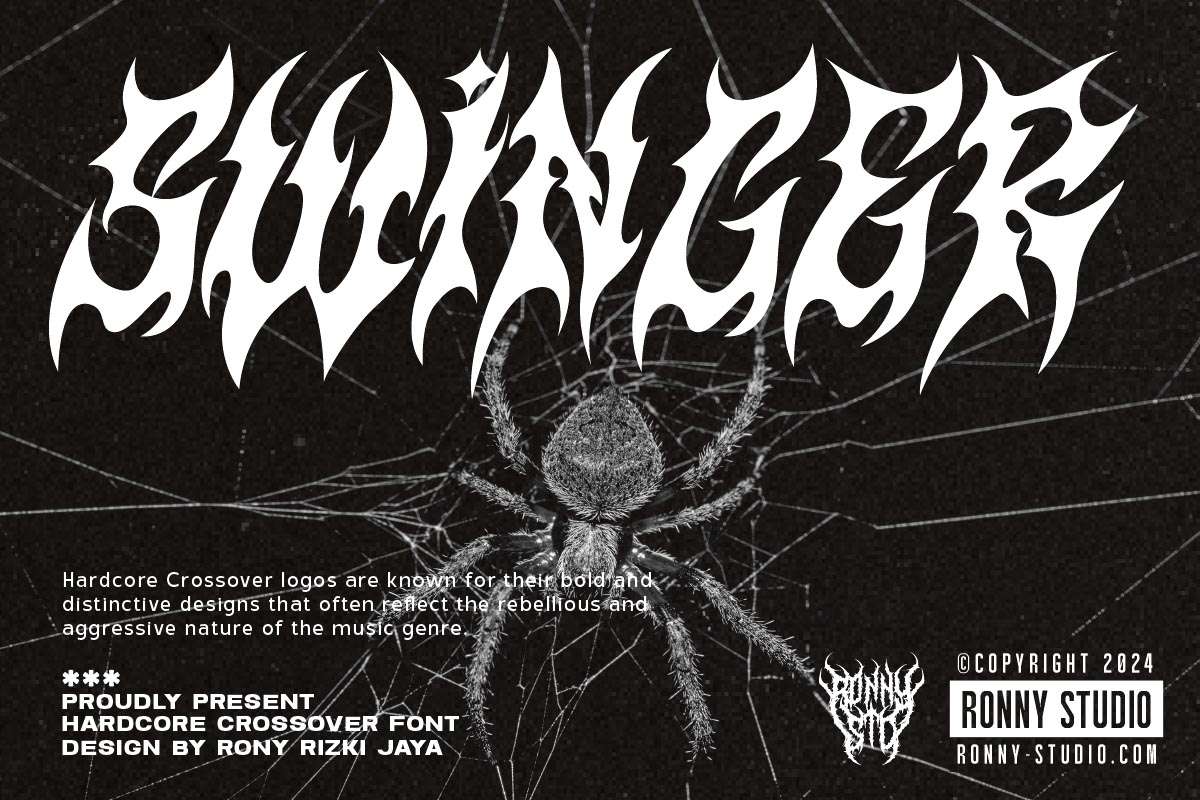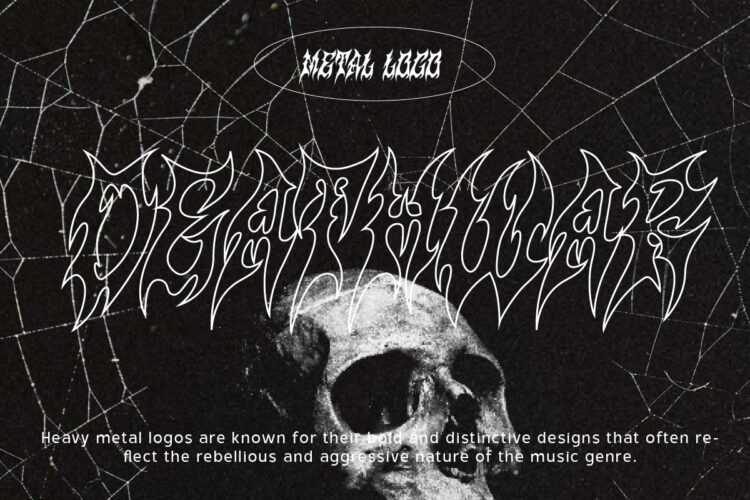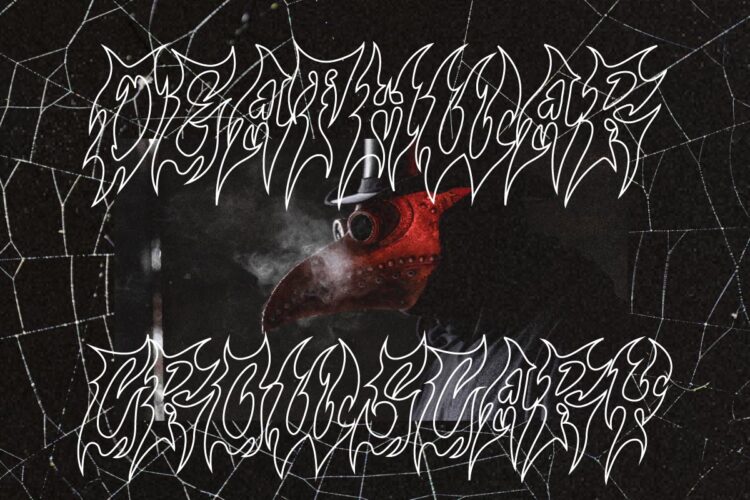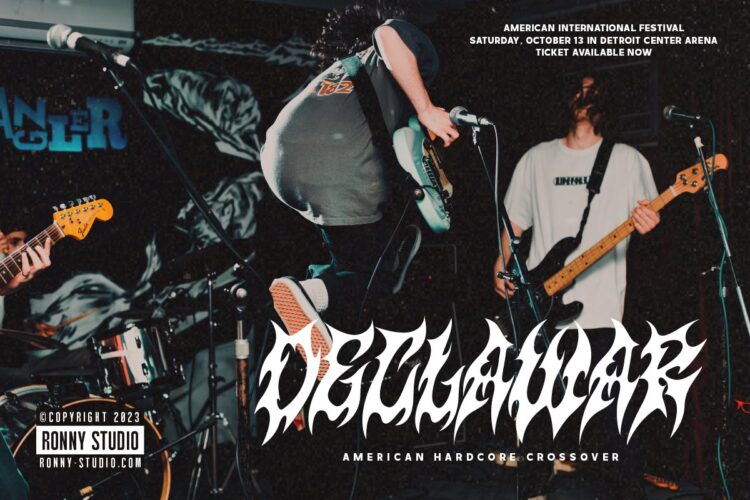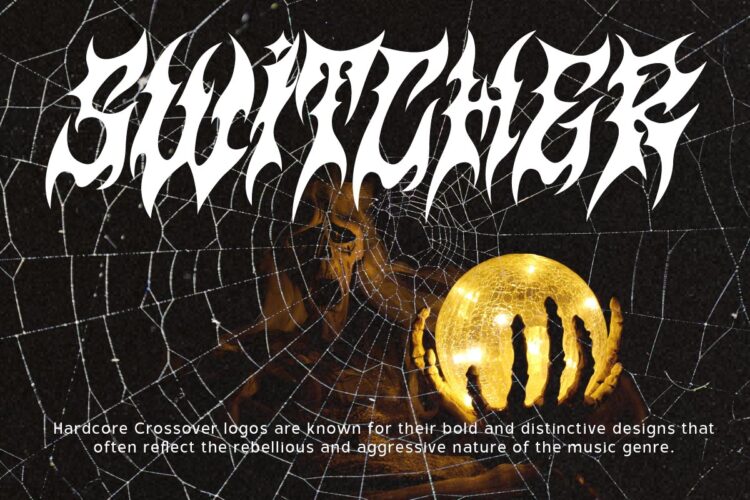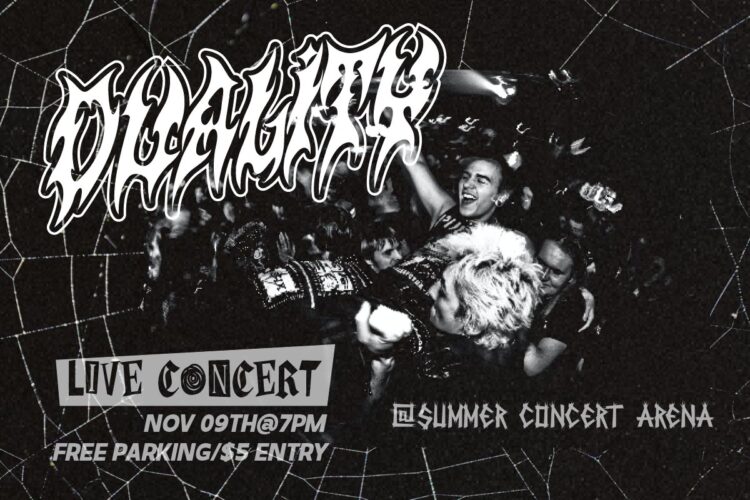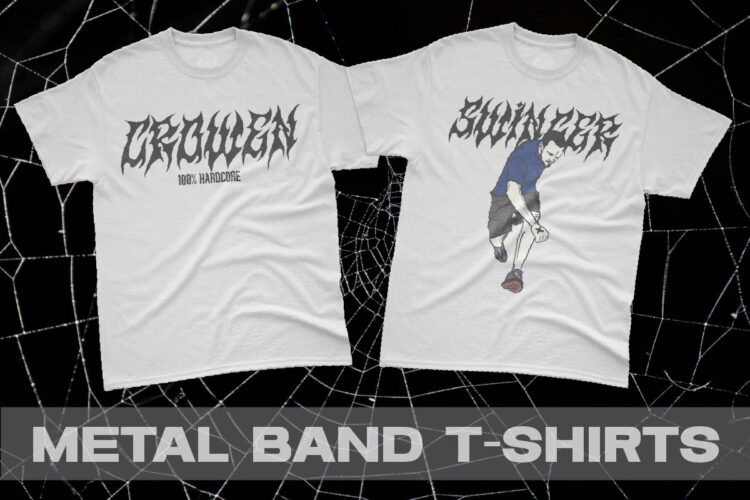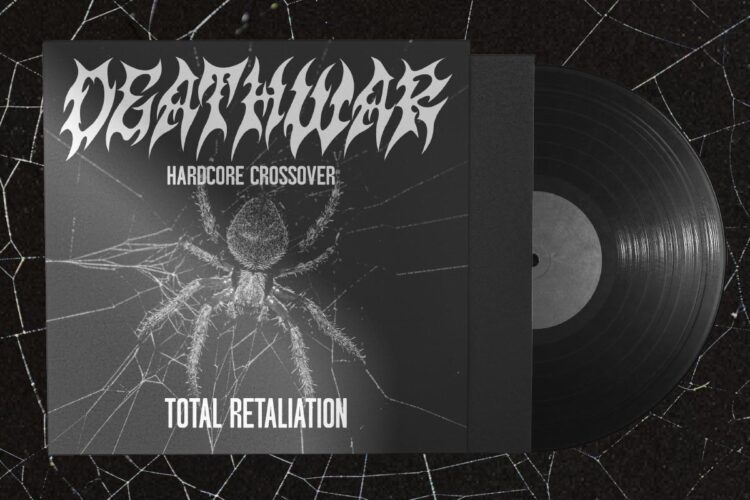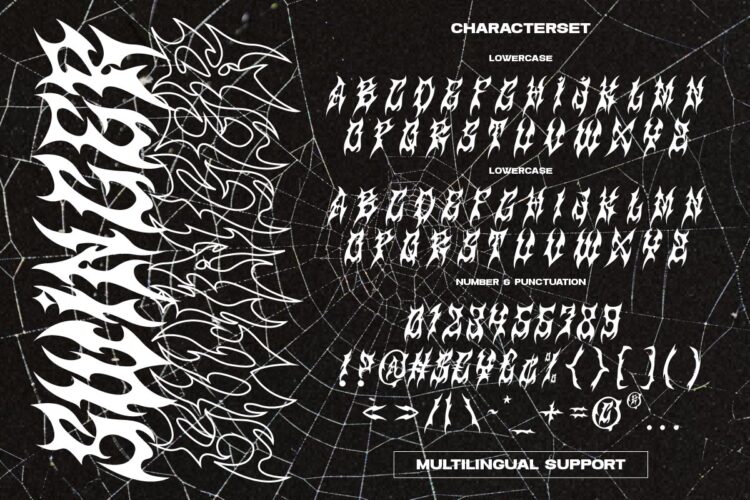
Hardcore Crossover Font Logo
Swinger
🔥 Swinger is a Hardcore Crossover font with a bold, aggressive, and high-impact look. Perfect for metal band logos, deathcore, hardcore punk, merch apparel, and gothic & horror-themed designs.
⚡ Why choose Swinger?
✔ Sharp & unique style – inspired by black metal & deathcore aesthetics
✔ Multilingual Support – compatible with multiple international languages
✔ Ideal for both print & digital – maintains sharpness in all sizes
🔥 Perfect for:
✔ Metal, punk, hardcore, and deathcore band logos
✔ Merchandise apparel & streetwear
✔ Concert posters, album covers, and event flyers
✔ Tattoo designs & underground branding
Swinger – Hardcore Crossover Font Logo